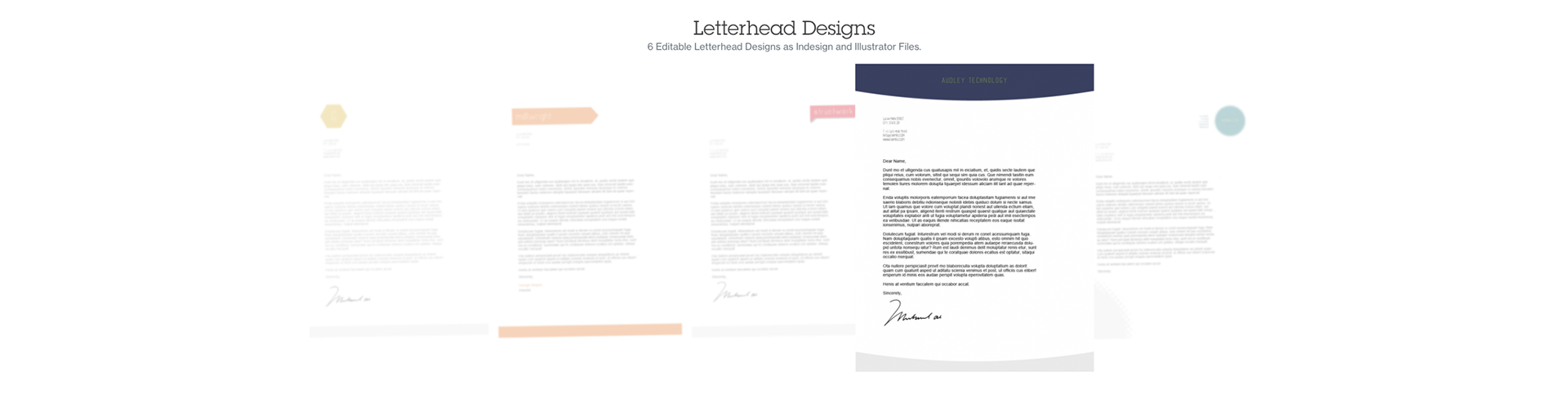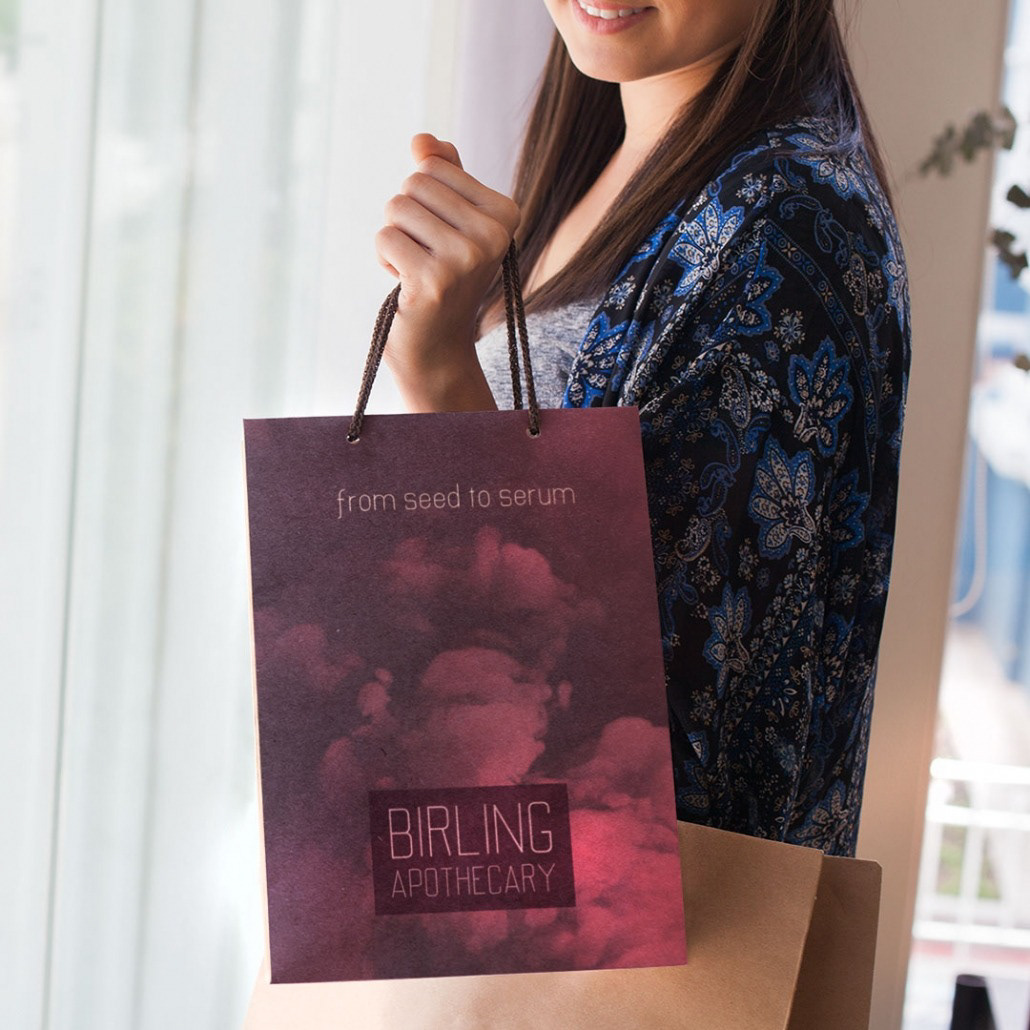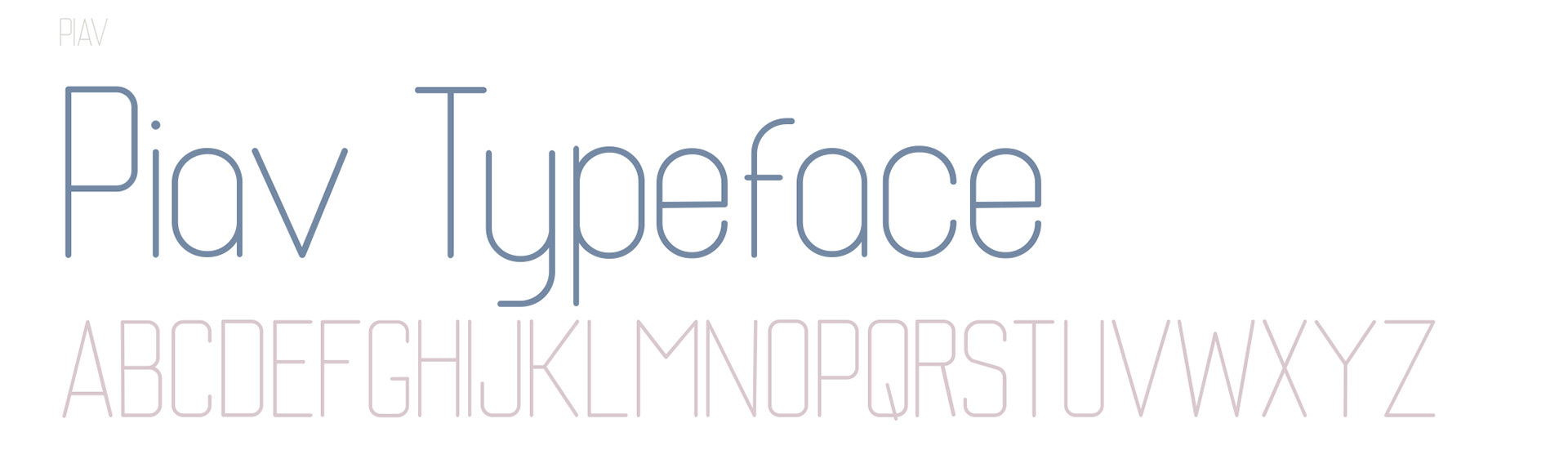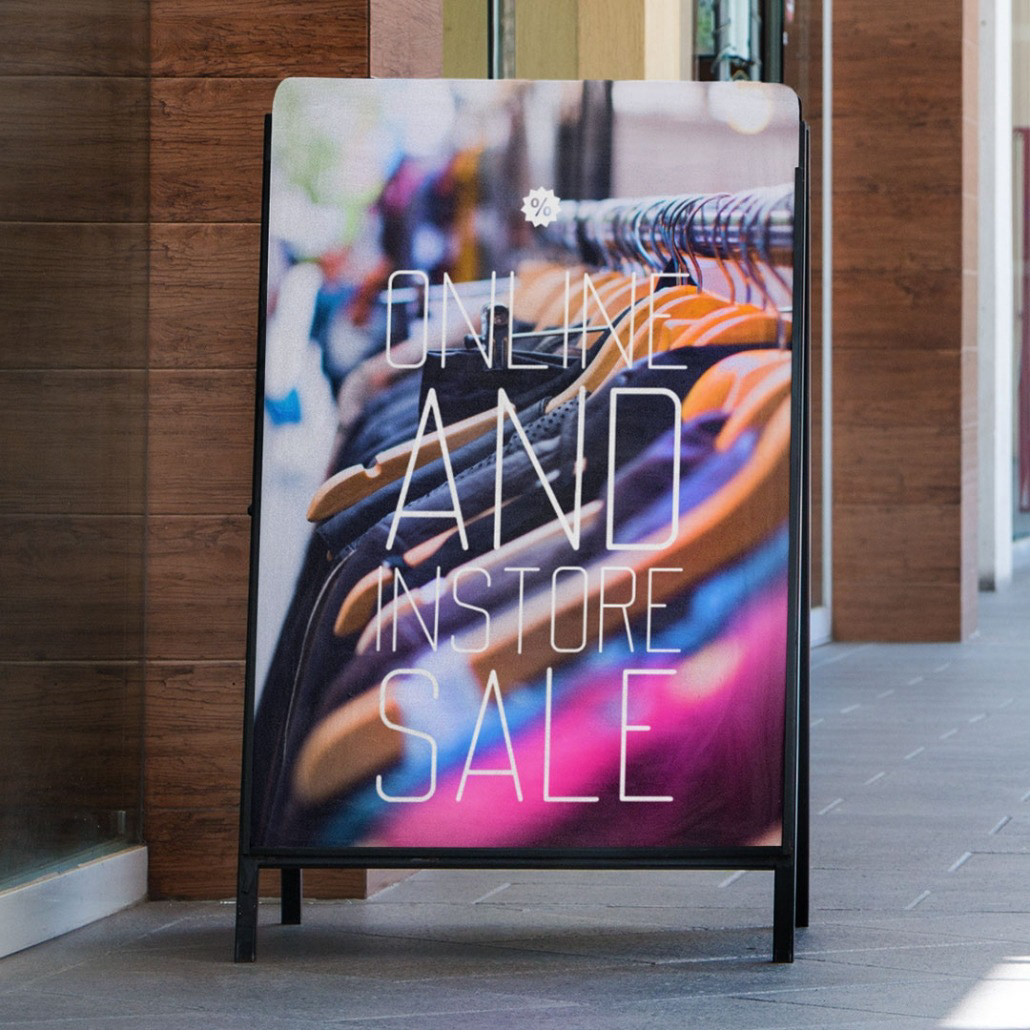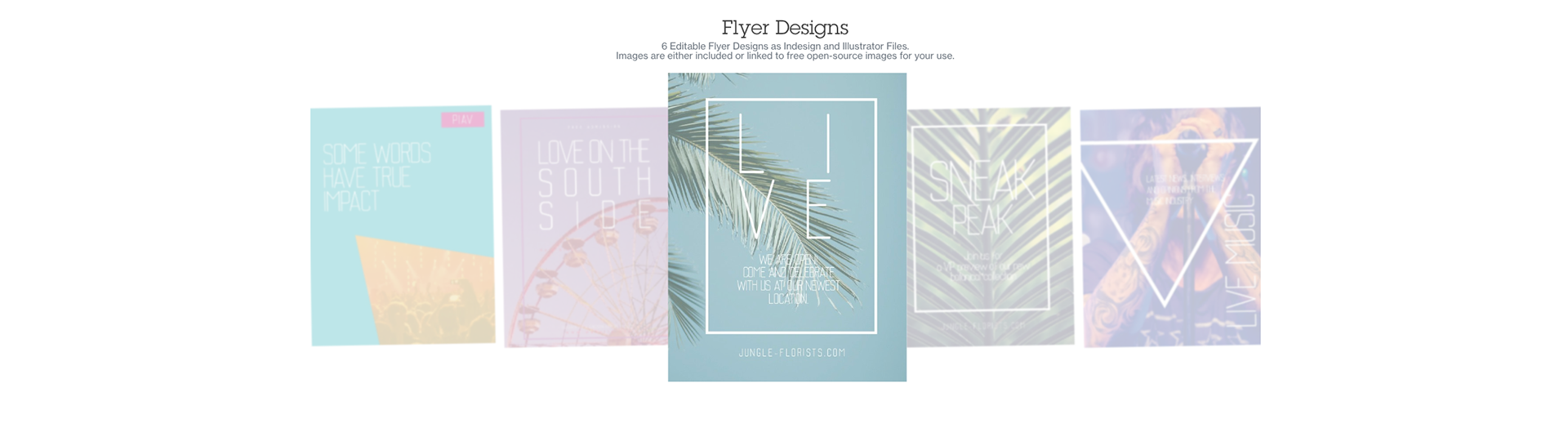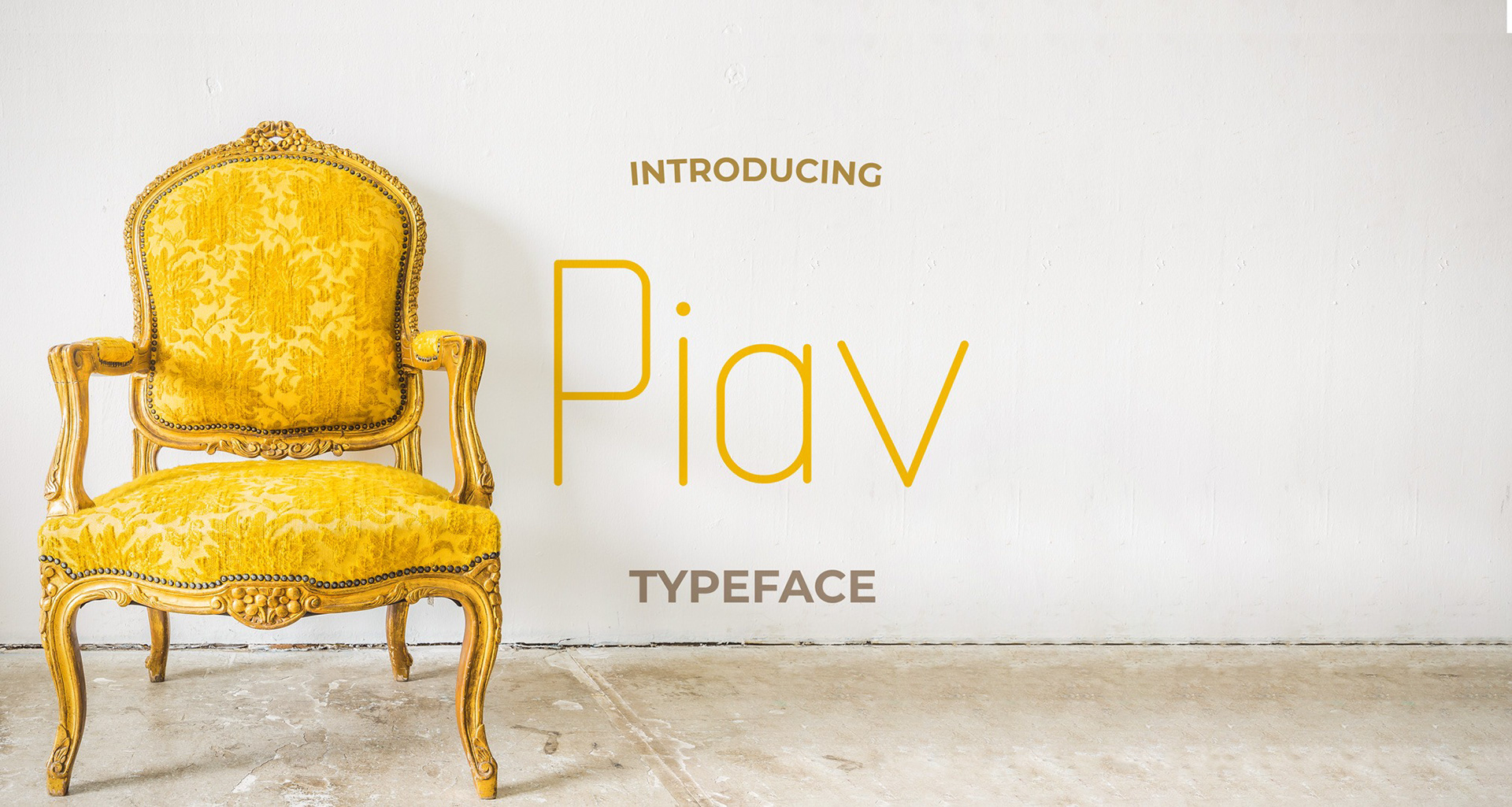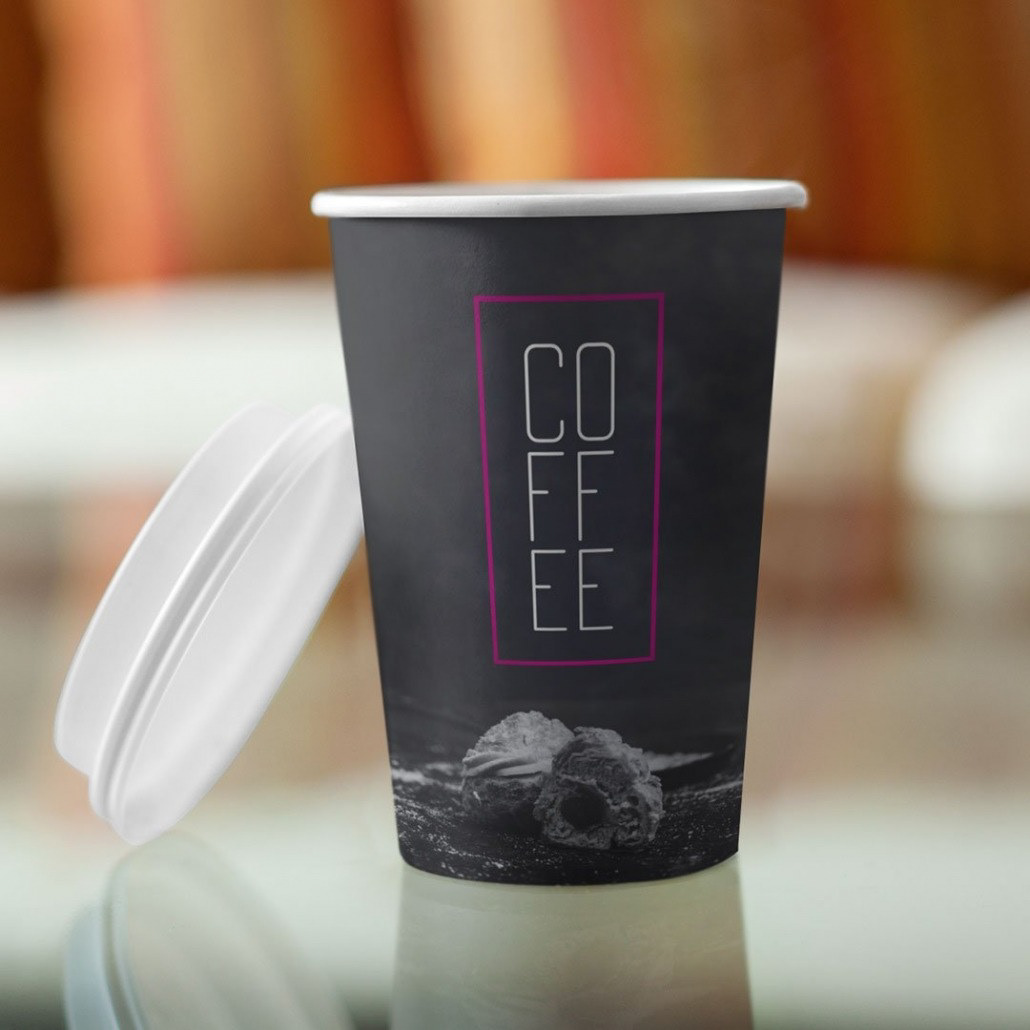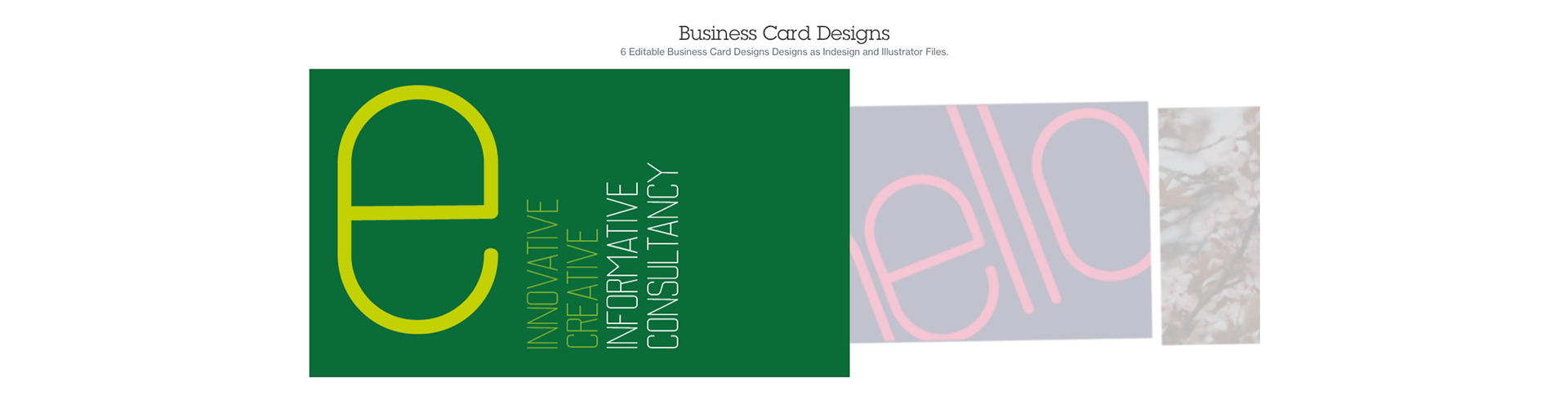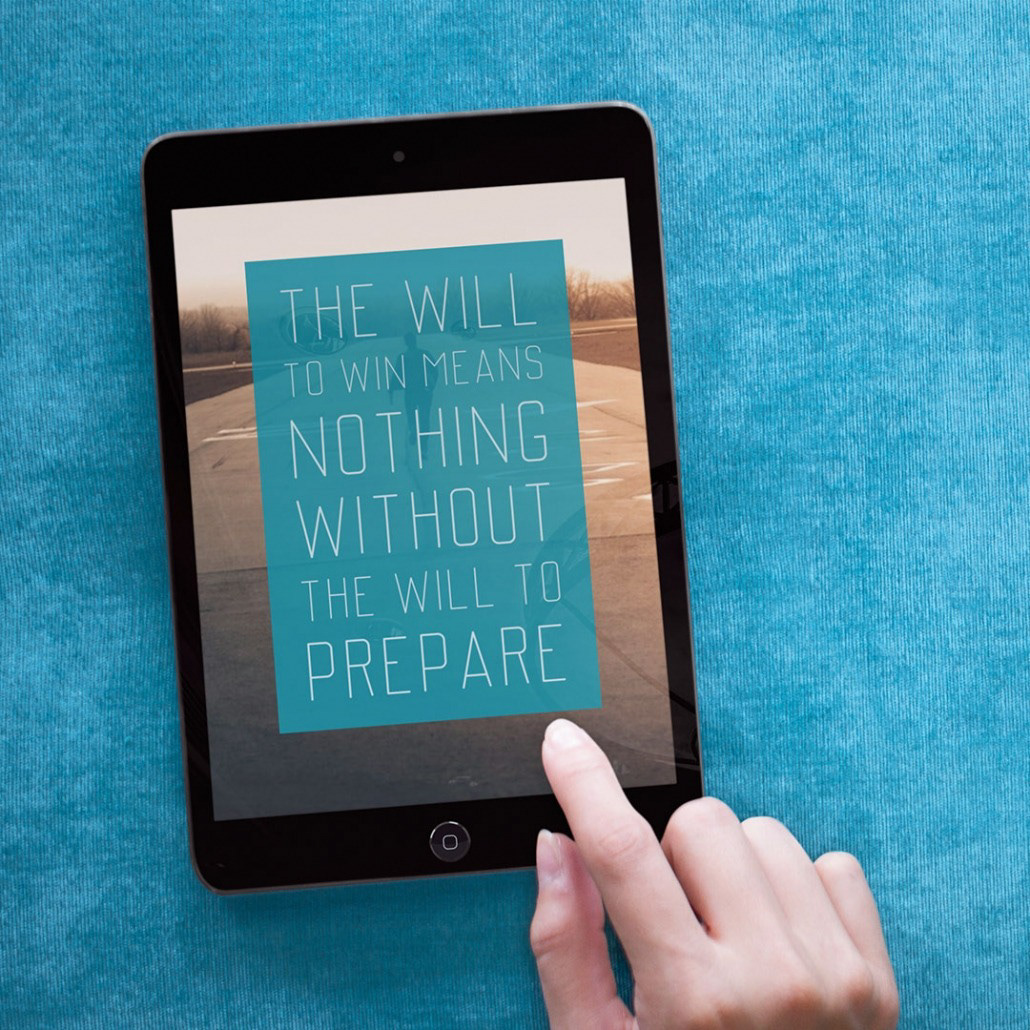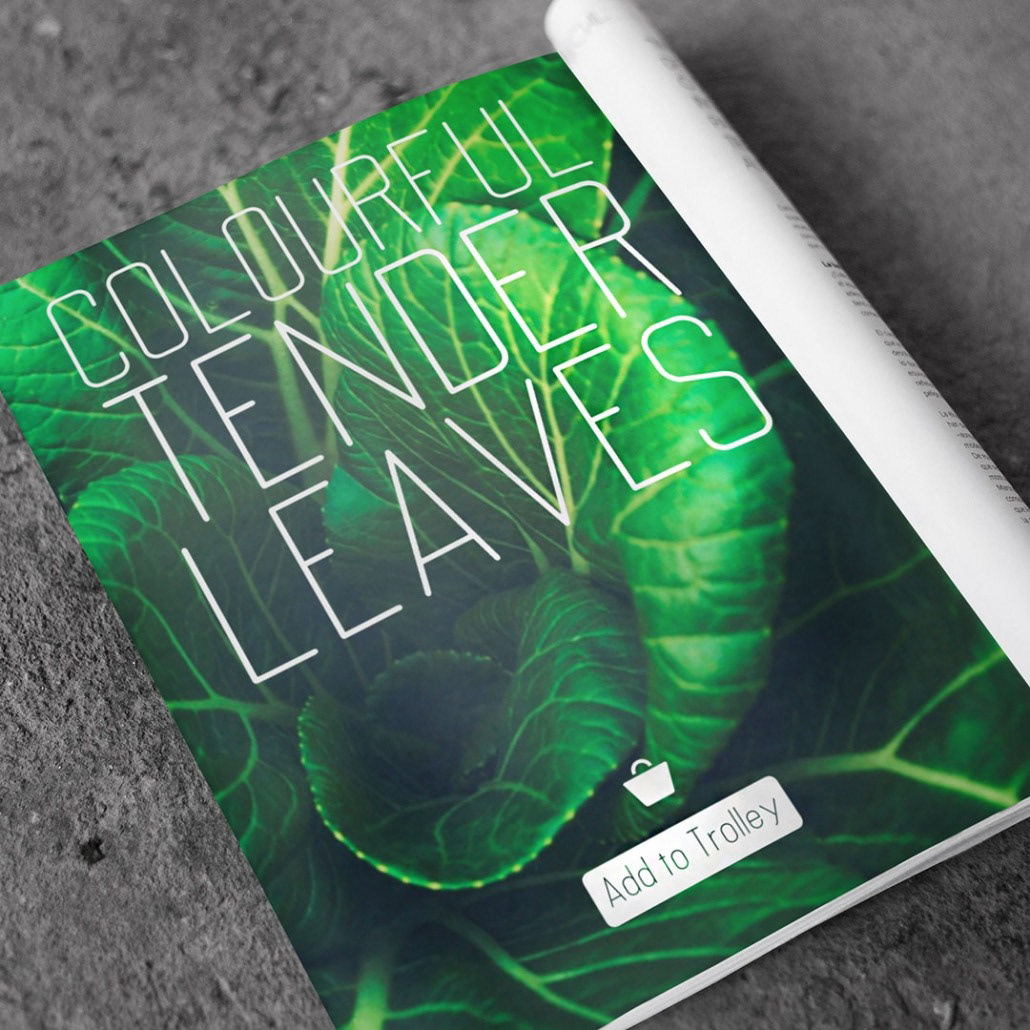
Piav is a modern sans serif with a geometric touch, a single weight font,
designed specifically for larger display, headline and banner use.
The single stroke weight font and simplicity of the letterforms are useful for communicating clean, modern style when your tone of voice is simple thinking, transparent and honest.
Designed with OpenType features in mind, including extended language support, fractions, tabular figures, arrows, ligatures and more.
Ideally suited for graphic design and any display use. It efficiently works for web, signage, corporate as well as for editorial design.